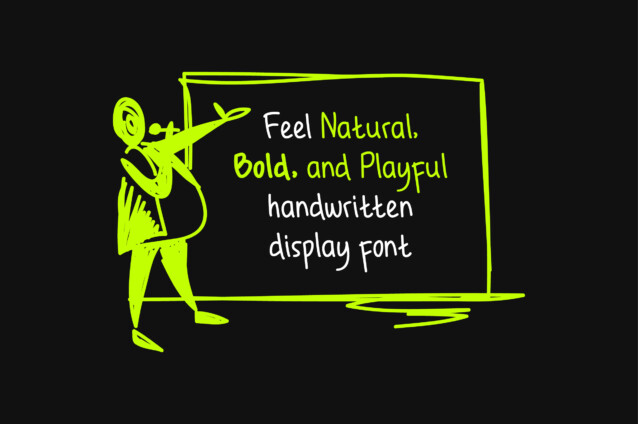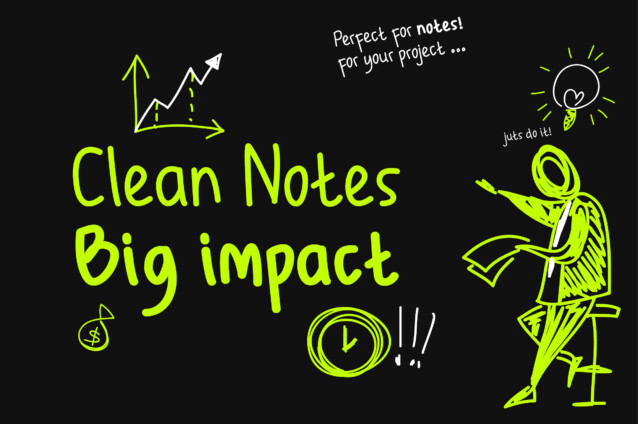
Bold Marker Display Font is a casual, bold and playful font! This font works perfectly for anyone who needs a font for headlines, logotype, apparel, invitations, branding, packaging, advertising, and more. This typeface includes uppercase, lowercase, punctuation, symbols, and numerals.